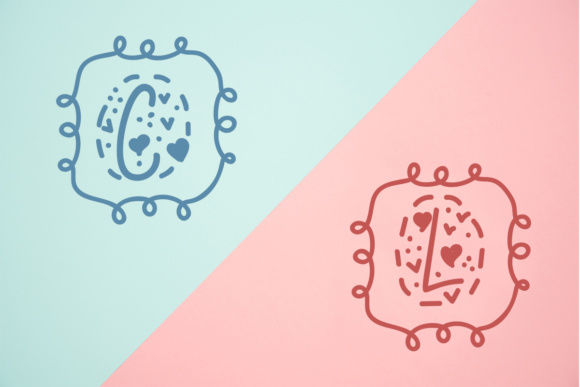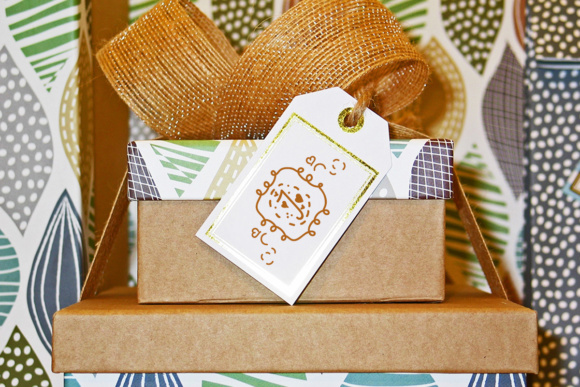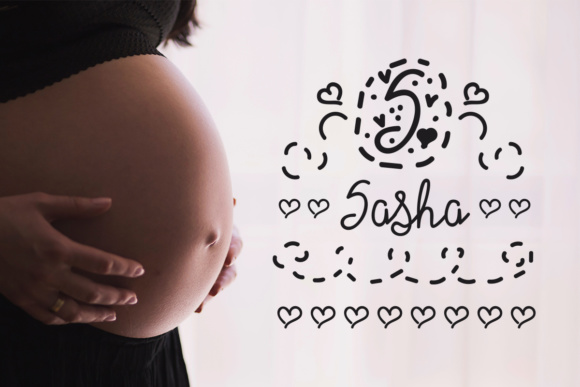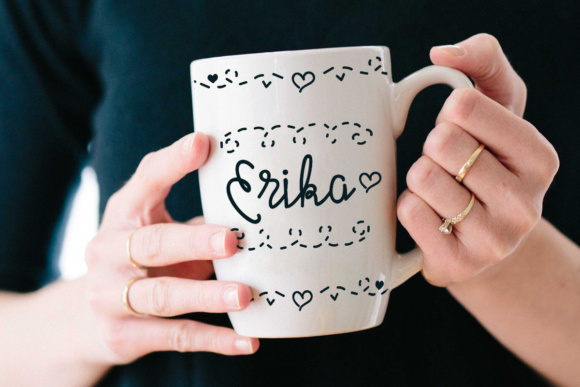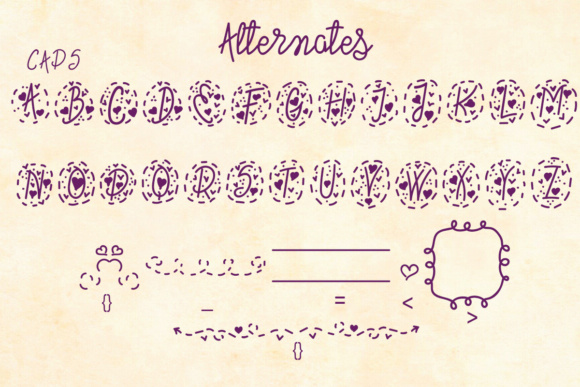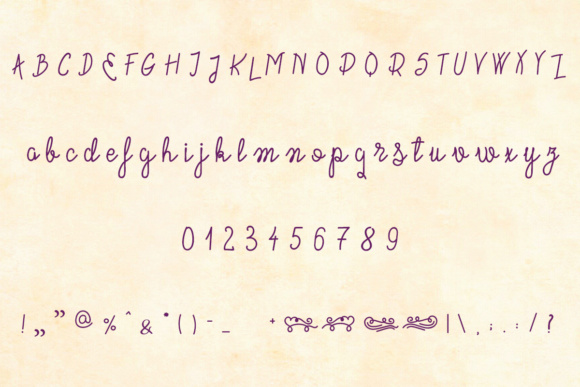
The Sweetest Touch for Kid-Themed Designs
Have you ever been in the middle of brainstorming ideas for a baby shower invitation or nursery decoration and suddenly felt the urge to add a touch of whimsy and charm? I know I have! That’s when I discovered the Baby Monogram Font, a delightful decorative font that adds an extra layer of sweetness to any design.
This font is a treasure trove for designers looking to create kid-themed designs that are both adorable and professional. The Baby Monogram Font features capital letters that are packed with decorative monogram frames and hearts, making it the perfect addition to any project that requires a touch of magic.
With the Baby Monogram Font, designers can add a personal and unique touch to their designs, making them stand out from the crowd. Whether it’s a baby shower invitation, nursery decoration, or any other kid-themed project, this font is sure to be a hit.
Baby Monogram Font Key Features
- Unique Characteristics: The font features adorable baby-themed monograms, perfect for creating personalized baby gifts, invitations, and stationery.
Designer Review: Baby Monogram Font
Overall, I was excited to review the Baby Monogram Font. The designer has done a great job with the initial concept ✨. The font is playful, modern, and perfect for baby-related designs, such as nursery decor, invitations, or apparel.
- The font is well-designed for a variety of uses, from logos to text-based designs.
- The designer has included a range of monogram styles, allowing users to customize their designs.
- The font is scalable, making it easy to use for both small and large designs.
However, there are a few limitations to consider ⚠️:
- The font may be too playful for some designs, such as formal or professional projects.
- The monogram styles may be limited for users who want a more complex or customized design.
- The font may not be suitable for users who need a font with a high level of legibility.
Overall, I would give the Baby Monogram Font 4 out of 5 stars. It’s a great choice for users who need a modern, playful font for baby-related designs. However, users should be aware of the limitations and potential drawbacks before purchasing.
Some tips for getting the most out of the Baby Monogram Font include: using it to create custom baby announcements, baby shower invitations, and personalized baby blankets. You can also use it to add a personal touch to baby gifts and party decorations.
Some common use cases for the Baby Monogram Font include: creating custom monogrammed baby towels, blankets, and bibs. You can also use it to create personalized baby photo albums and picture frames.